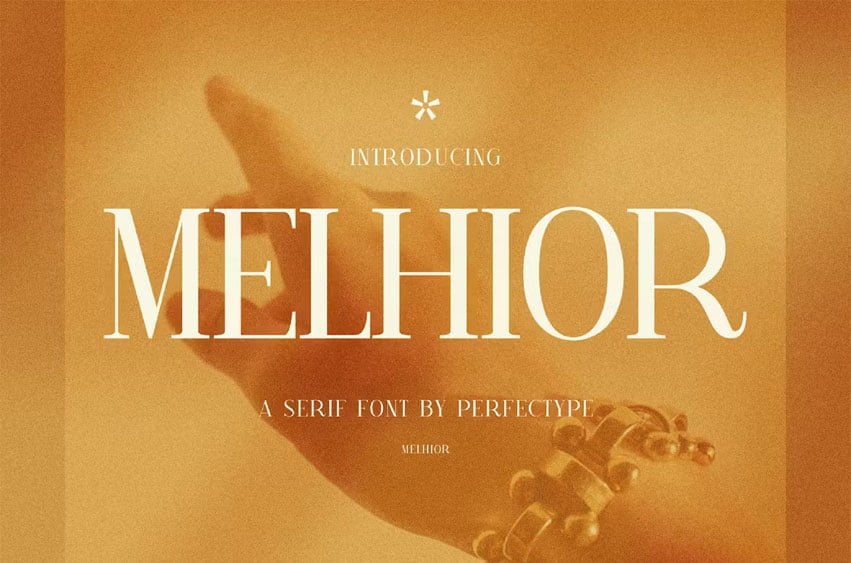
Melhior Font Modern Serif Font Typeface inspired by the famous minimalist logo perfect for the purposes of designing templates, brochures, videos, advertising branding, logos, invitation, layout design, elegant crafting, beauty design and other